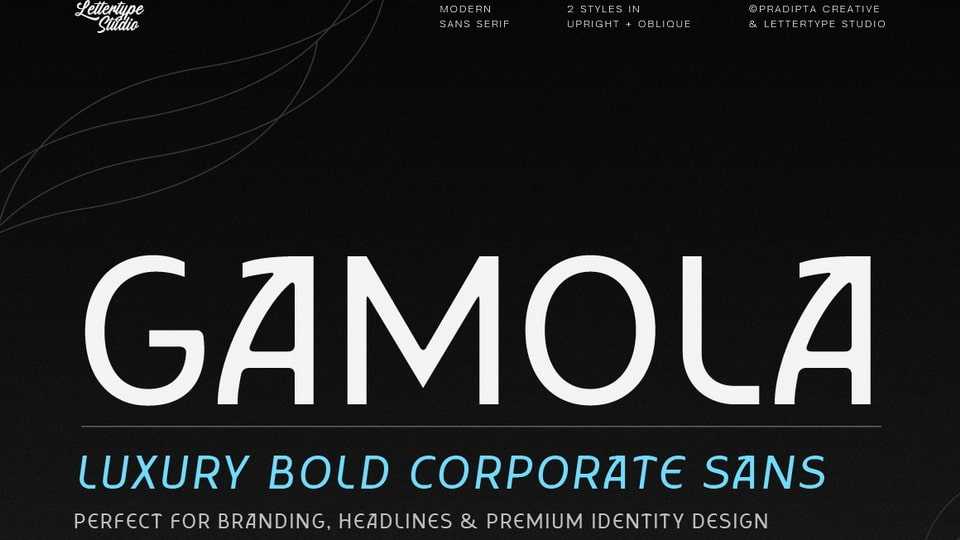
Download Gamola font, a luxury bold corporate, high-impact sans serif typeface created for premium branding and bold corporate identity.
Designer: Lettertype Studio